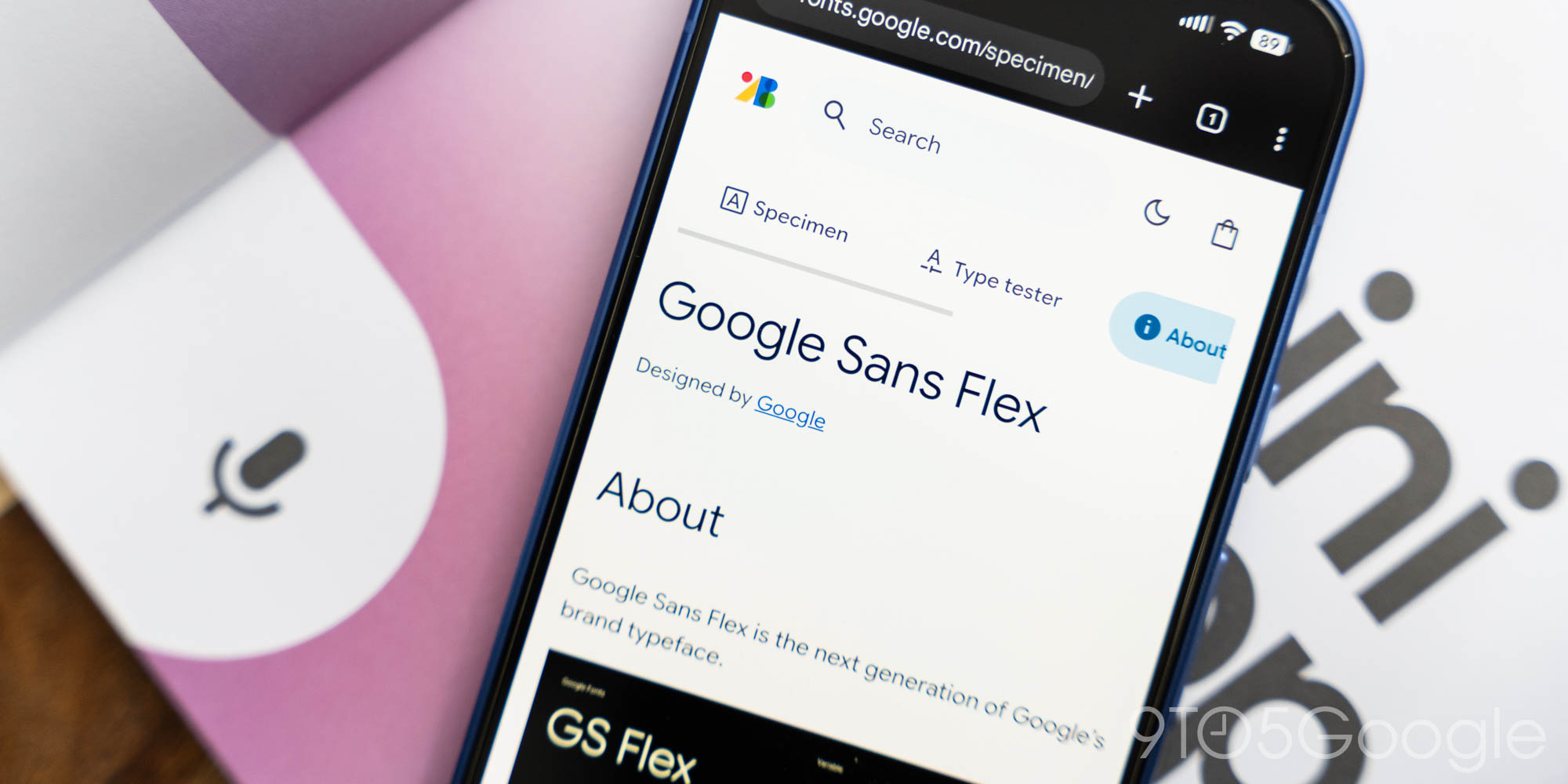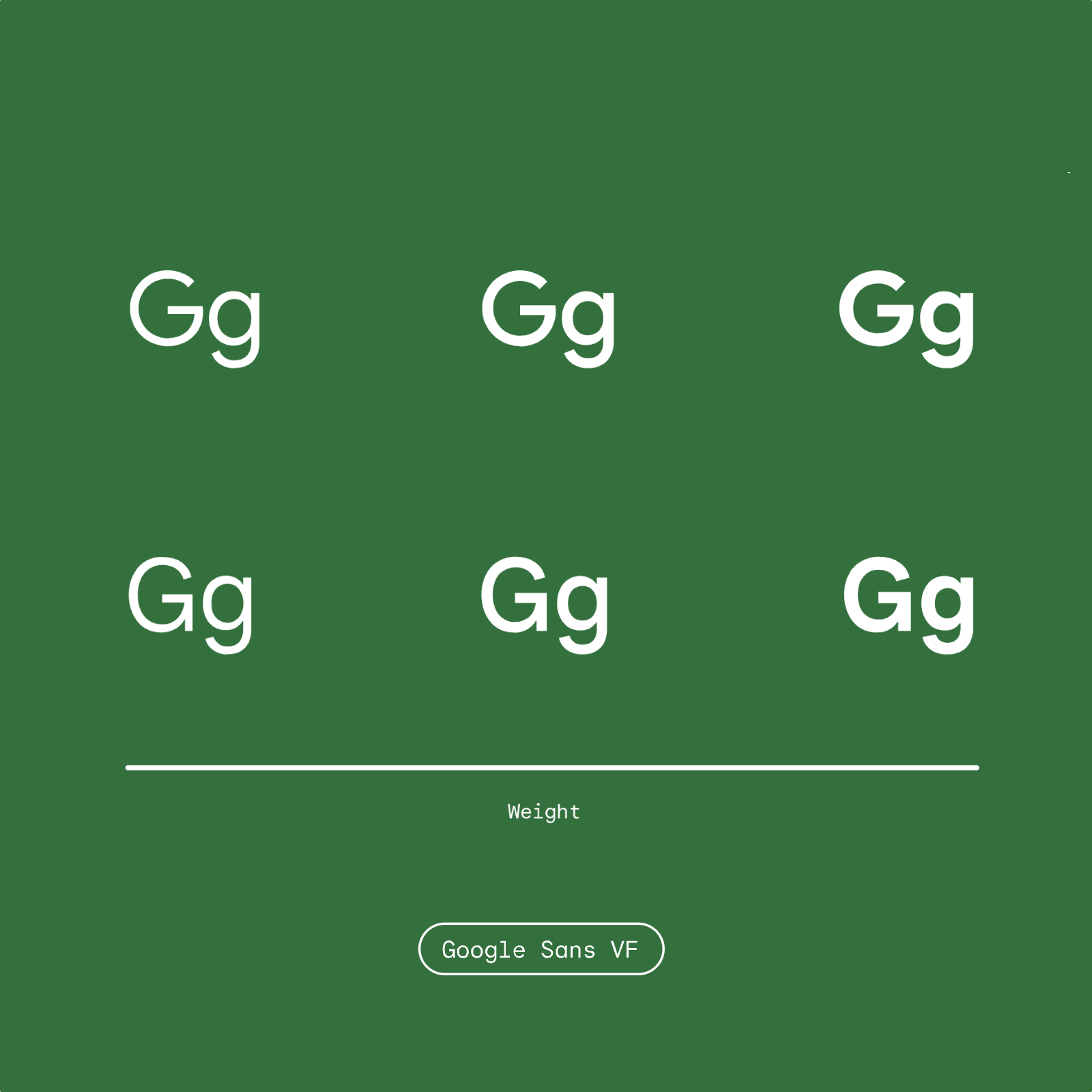
Google Sans Flex Free Font: Six Variable Axes, One File
Google Sans Flex free font: Google's own brand typeface is now free and open under OFL, rebuilt by David Berlow with six axes including a rare roundness.
Google has used Google Sans Flex across Search, Maps, Gmail, and Pixel devices for years. The typeface carries a clean geometric foundation that works at every scale, from interface text to display headlines. What makes it stand apart from other variable sans-serifs is the depth of its design range. Font Bureau's David Berlow rebuilt it with six axes: weight, width, optical size, grade, slant, and roundness. Each axis operates independently, and a single file replaces what once required dozens of separate static weights and styles.
The roundness axis is the standout feature. It shifts letterforms from crisp and geometric to softly rounded without touching weight or width. That kind of precise, isolated control is rare in variable fonts, and it makes Google Sans Flex adaptable far beyond brand contexts. The typeface scales from smartwatch UI to billboard typography without losing legibility. Designers can grab it directly from Google Fonts, install it via npm through Fontsource, or add it to a Figma project in seconds. The license is SIL Open Font License 1.1, free for commercial and personal use.
The broader story here matters. Google's in-house typographic system, powering a vast product ecosystem, is now a shared resource. Designers working on UI products, editorial layouts, or brand systems should download Google Sans Flex free font today. One variable file covers it all, at no cost, under a license that allows commercial work without attribution.
Google Sans Flex free font displayed on Pixel 9 Pro device
Google Sans Flex in use across Pixel devices
Google Sans Flex free font variable axes specimenGoogle Sans Flex free font in app UI context